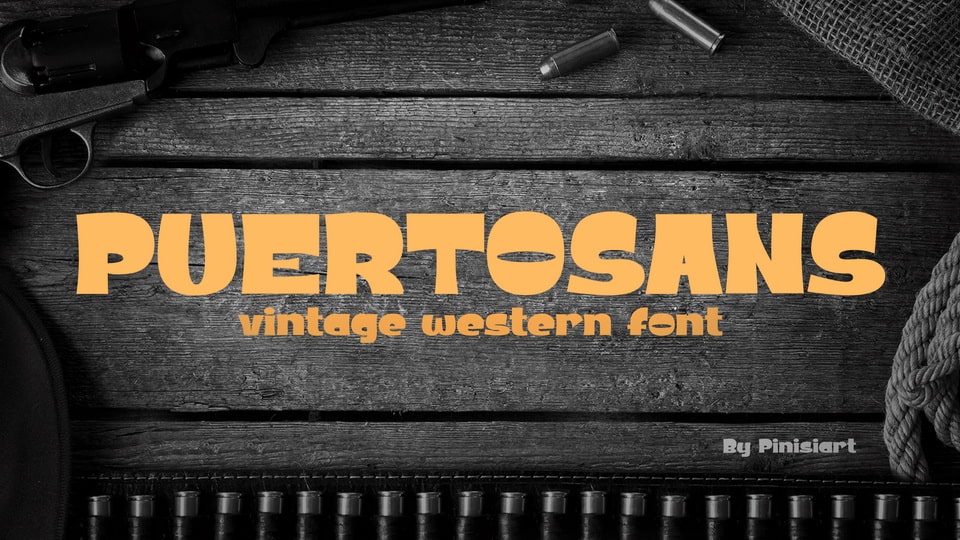
Download Puertosans font, a vintage western typeface. Suit perfectly for western themes design, online games, stationary, badge style logo font, poster, Youtube covers, Youtube thumbnails, social media page covers and so on…